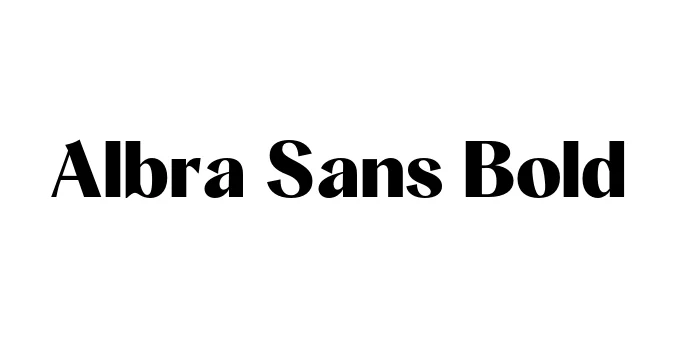
Albra Sans Bold
Designed by Leonhard Katschner (BumbumType)
Albra Sans Bold is a sophisticated contemporary sans-serif typeface designed by Leonhard Katschner as part of the broader Albra collection. Developed under the BumbumType foundry, this font family bridges the gap between classic grotesque structures and modern geometric clarity. It was crafted to provide a neutral yet distinct personality that works across diverse media platforms, ensuring a timeless aesthetic for professional designers.
The Bold weight specifically emphasizes high-impact legibility and a robust visual presence, making it a favorite for editorial layouts and high-end branding. With its wide range of OpenType features and carefully balanced kerning, Albra Sans Bold maintains an elegant and clean aesthetic whether it is utilized in large-scale headlines or structured user interface design.
Albra Sans Bold Best Uses
Excellent for creating authoritative and modern brand identities and logos.
Provides high legibility and impact for magazine headlines and cover titles.
Optimized for clarity on digital displays, making it ideal for headers and UI elements.
Effective for posters and social media graphics that require bold, clear messaging.